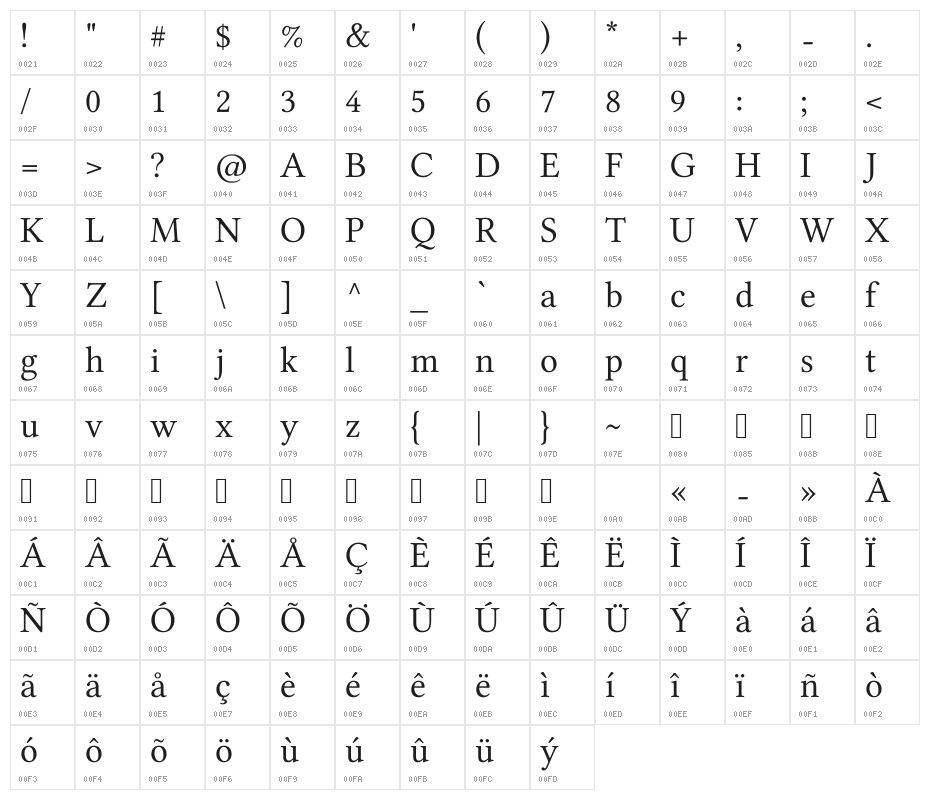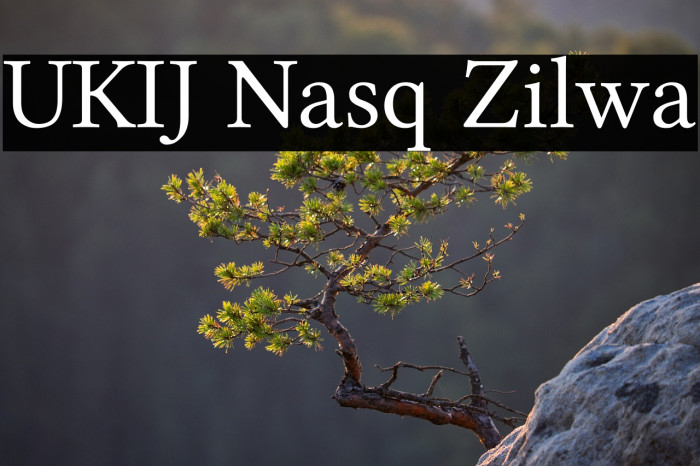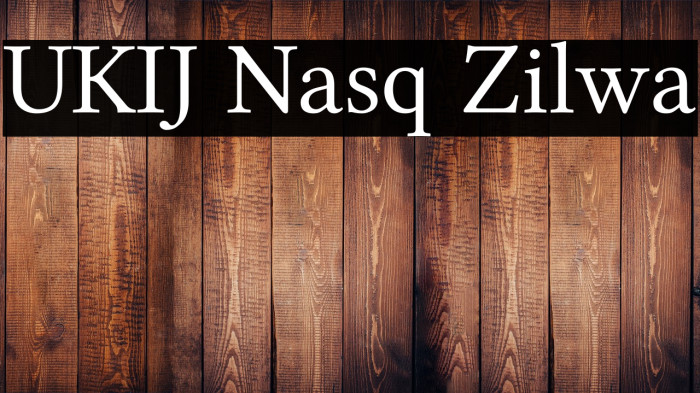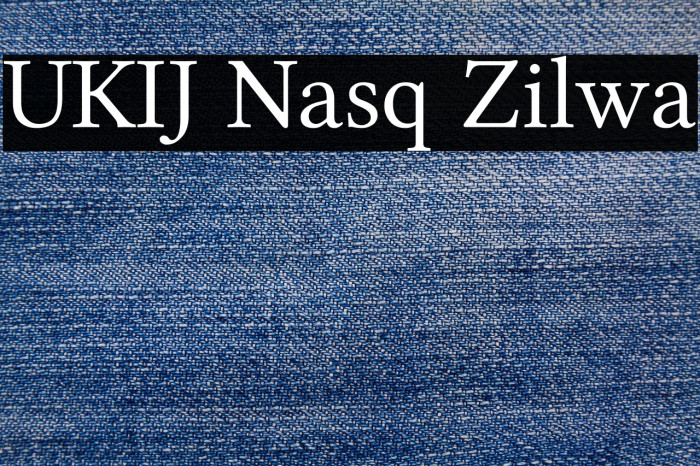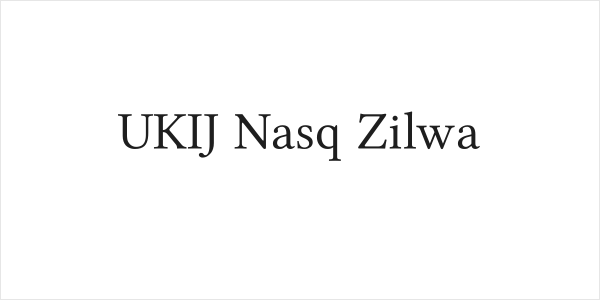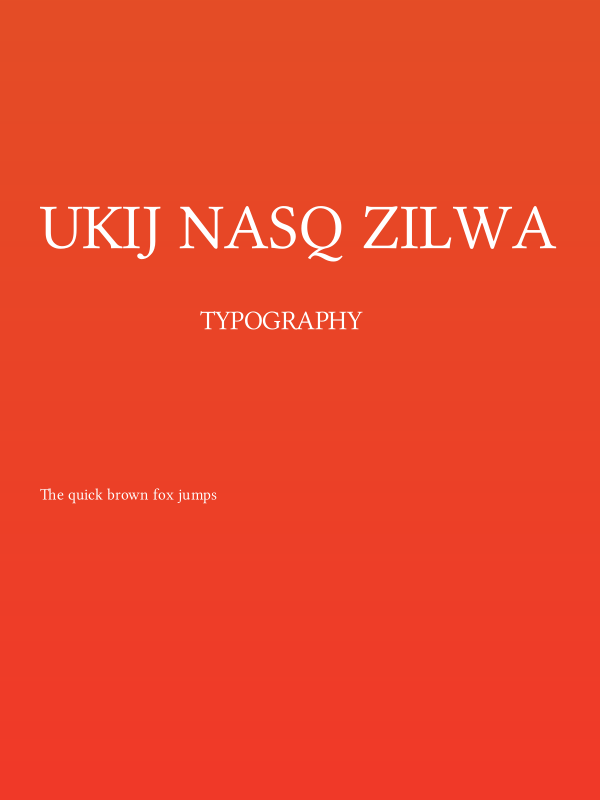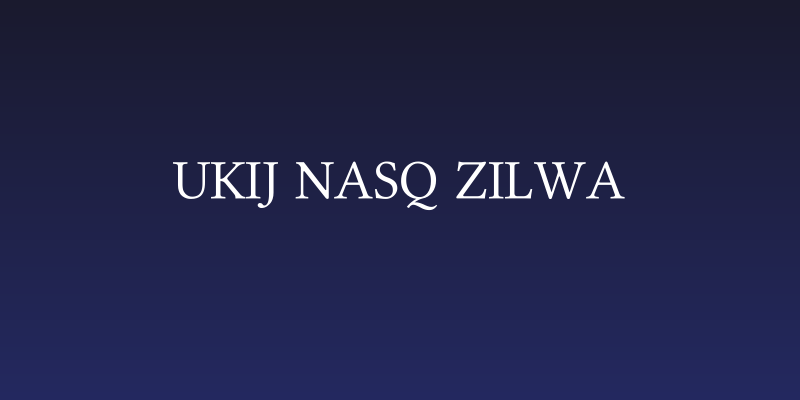
UKIJ Nasq Zilwa Font
UKIJ Nasq Zilwa Description
This font exhibits a classic serif style with elegant and refined strokes. The uppercase letters are well-proportioned, featuring sharp serifs that add a touch of sophistication. The lowercase letters maintain a consistent style, with smooth curves and a balanced appearance. The numerals are clear and legible, making them suitable for various applications. Special characters are thoughtfully designed, ensuring they complement the overall aesthetic. This font is versatile, offering a timeless look that can enhance both digital and print media.